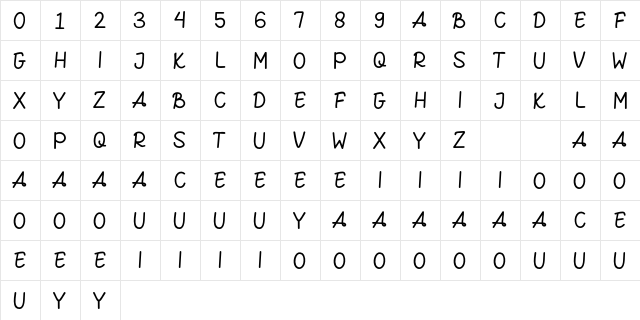
WAKTU Regular
Design Context for WAKTU Typeface
WAKTU is a composed and adaptable typeface that performs quietly and consistently across a wide range of design contexts.